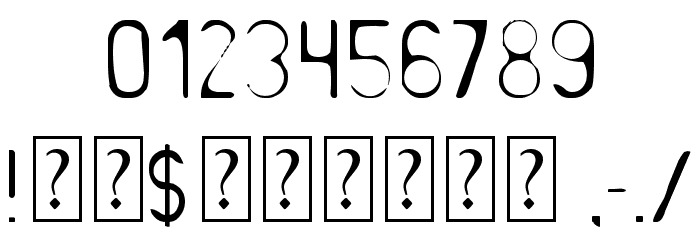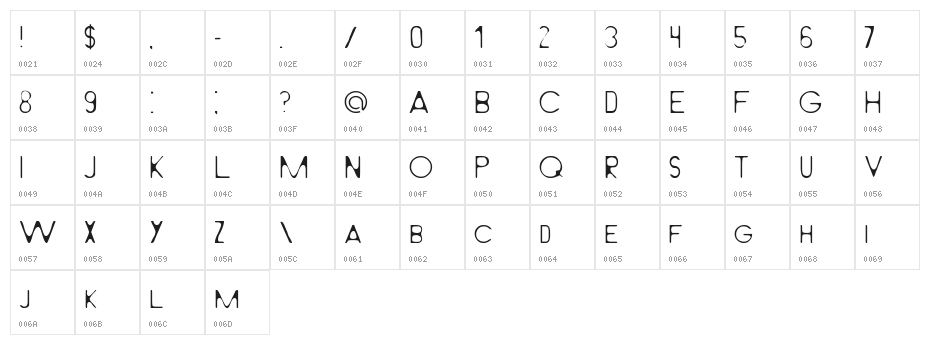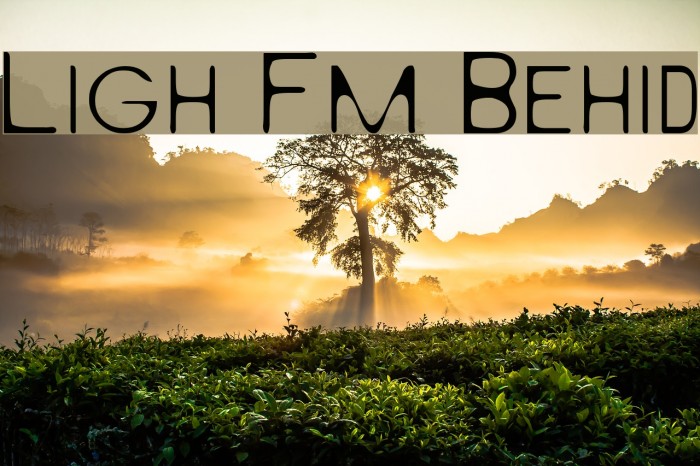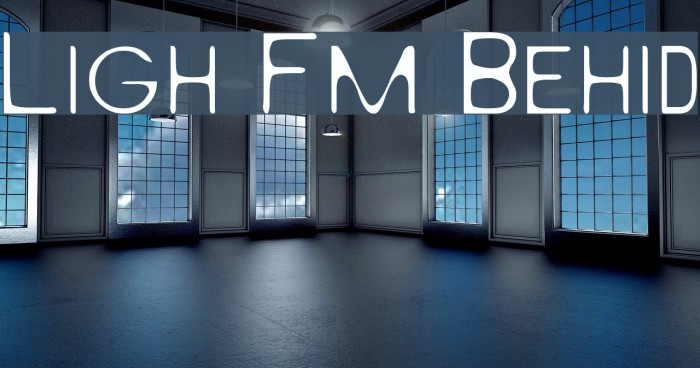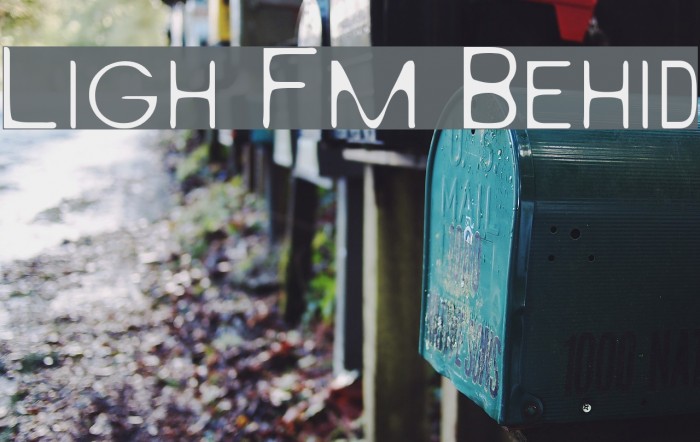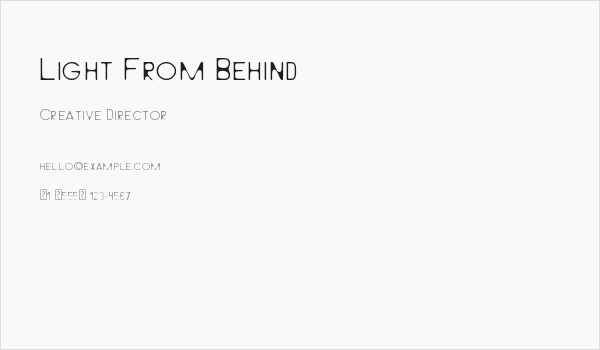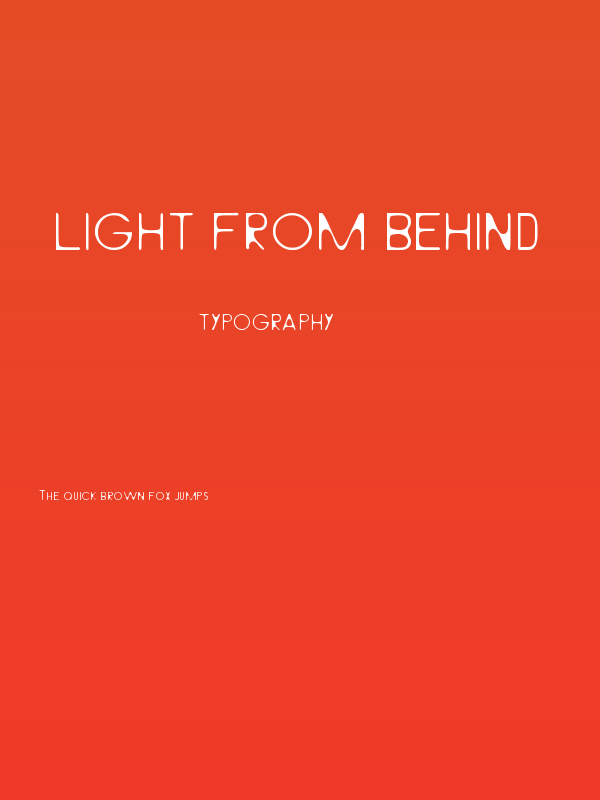
Light From Behind Font
Light From Behind Description
This font features a unique blend of geometric and organic shapes, creating a modern yet slightly retro aesthetic. The uppercase letters are bold and distinct, with a playful twist in the form of subtle curves and angles. The lowercase letters maintain this playful style, offering a consistent look across the alphabet. The numerals are clear and easy to read, with a slight artistic flair that matches the overall design. Special characters are included, adding versatility to the font. The spacing is balanced, ensuring readability while maintaining its decorative appeal.